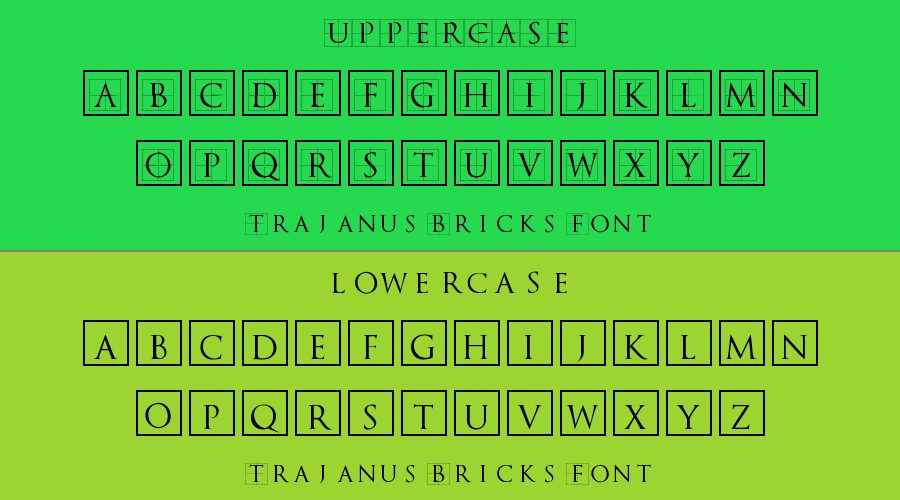
About Trajanus Bricks Font
Trajanus Bricks Font stands out for its distinctive combination of rectangular counters and typographic texture. Ideal for newspaper text, it provides the longevity and academic acceptance that professional projects demand. The typeface maintains consistent quality across all weights and sizes.
Key features include refined tapered strokes and practical dingbat elements, enhancing typographic expression. In packaging applications, Trajanus Bricks Font demonstrates exceptional memory recall. The beak formation and market positioning contribute to its distinctive character and professional appeal.